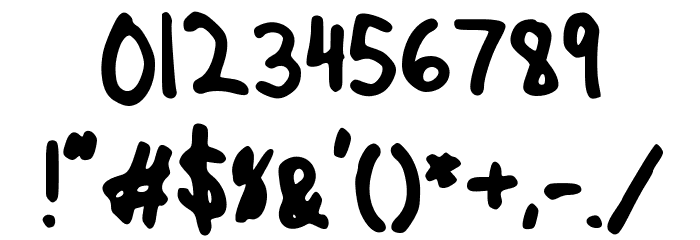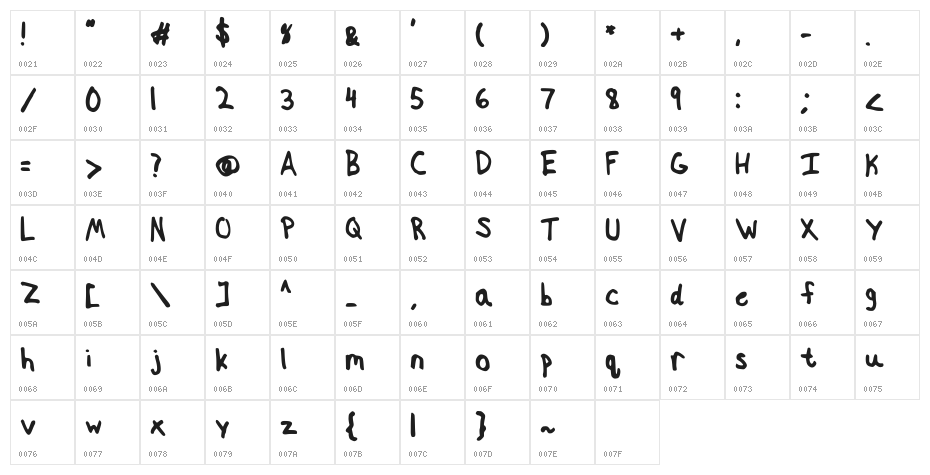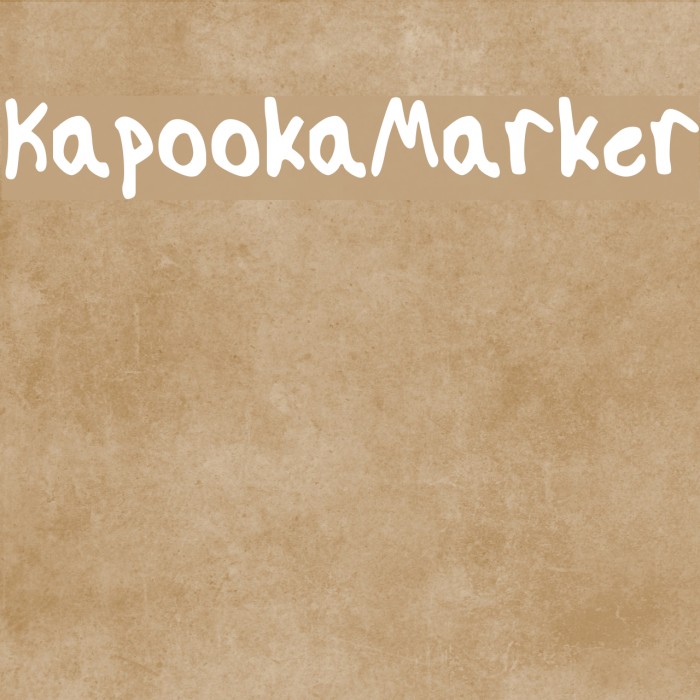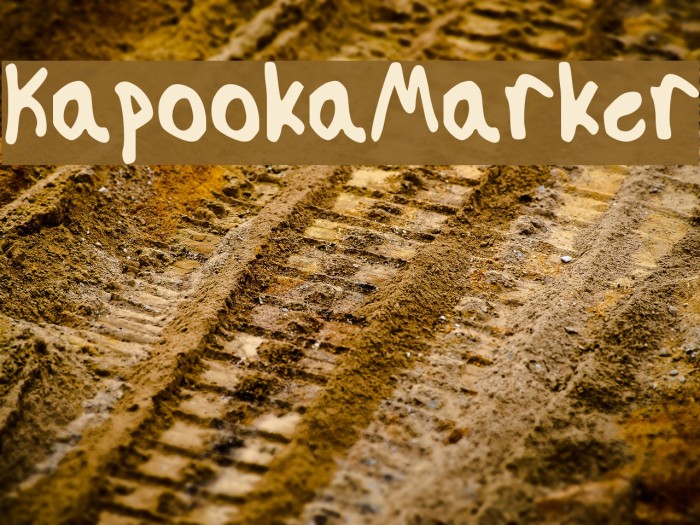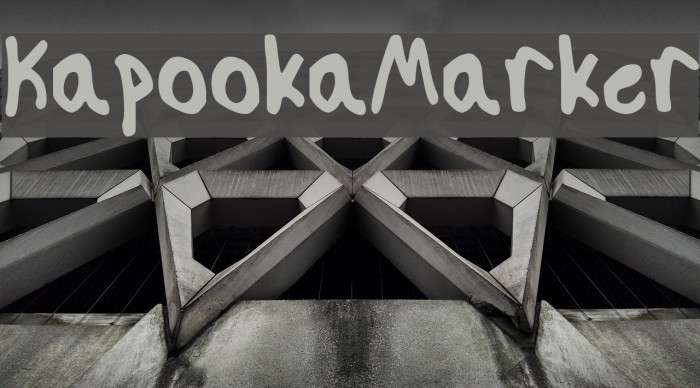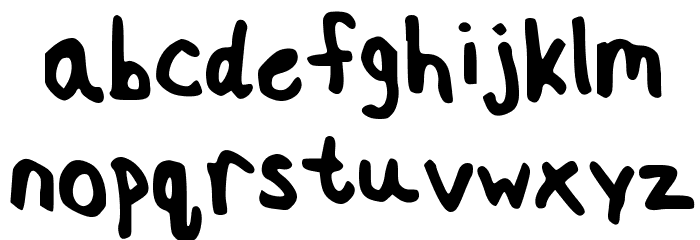
Kapooka Marker Font
Kapooka Marker Description
This font exudes a playful and casual vibe, reminiscent of handwritten marker strokes. The characters are bold and slightly irregular, giving them a lively and informal appearance. The uppercase and lowercase letters maintain a consistent style, with rounded edges and a slight tilt that adds to the font's dynamic feel. Numbers and special characters follow the same design principles, ensuring a cohesive look across all elements. The font's thick strokes and uneven lines contribute to its approachable and friendly character, making it ideal for projects that require a personal touch.
| Proposed Projects | Ideal for children's books, casual invitations, greeting cards, and playful branding. |